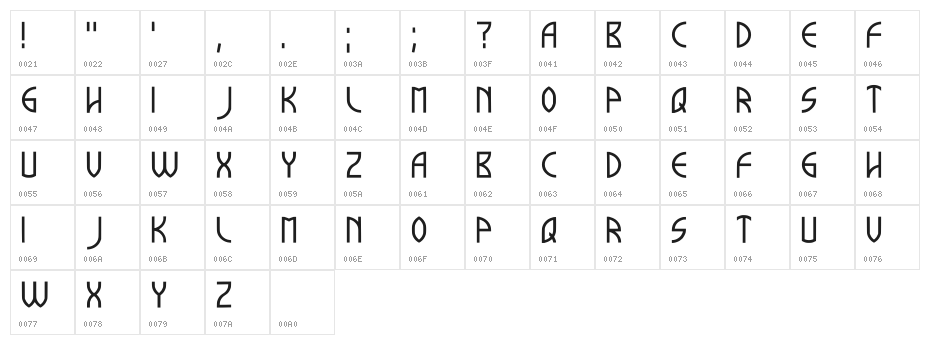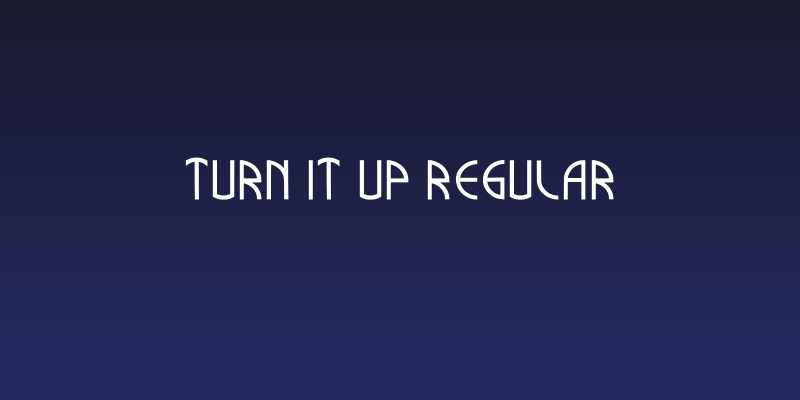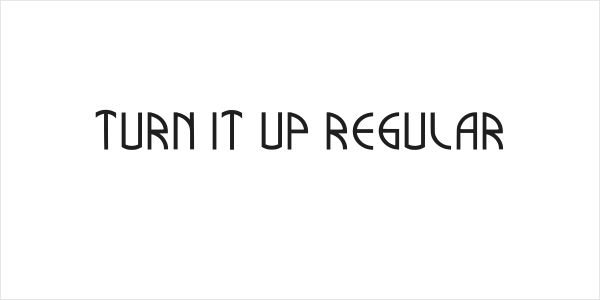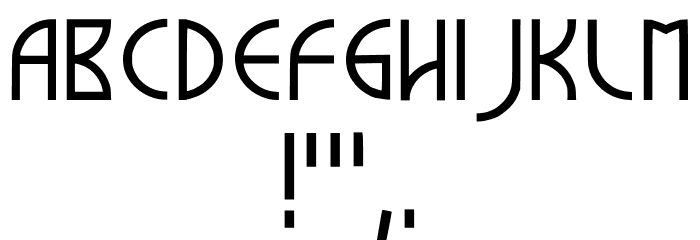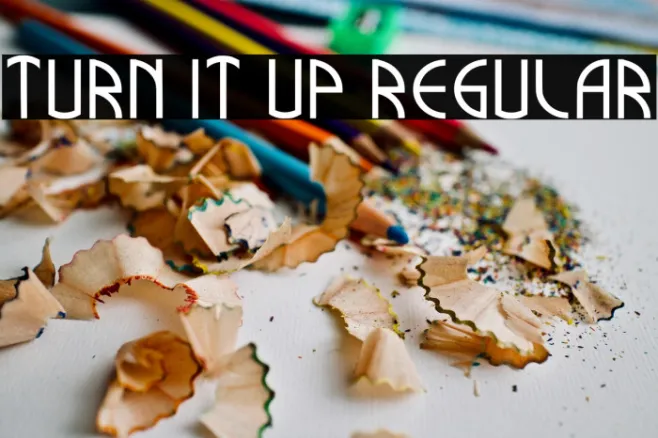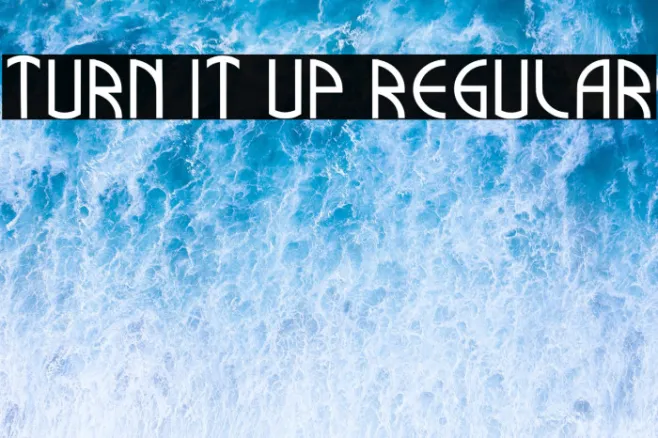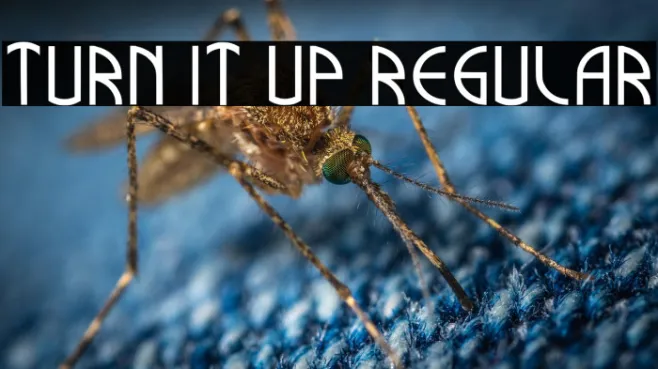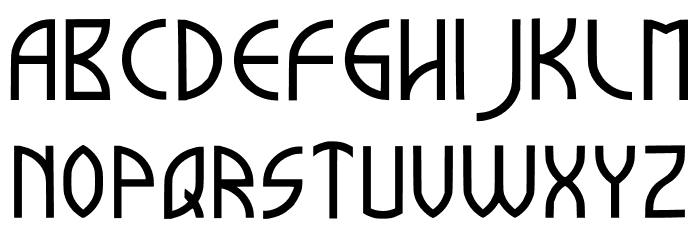
Turn It Up Regular Font
Turn It Up Regular Description
This font features a modern and geometric design with a unique twist on traditional letterforms. The characters are constructed with clean, straight lines and sharp angles, giving it a futuristic and edgy appearance. The uppercase letters are particularly distinctive, with some characters incorporating unexpected curves and cuts that add a dynamic feel. The lowercase letters maintain a consistent style, ensuring readability while still offering a creative flair. The numbers and special characters follow the same design principles, making the font versatile for various uses. Overall, this font stands out with its bold and innovative style, perfect for making a strong visual impact.